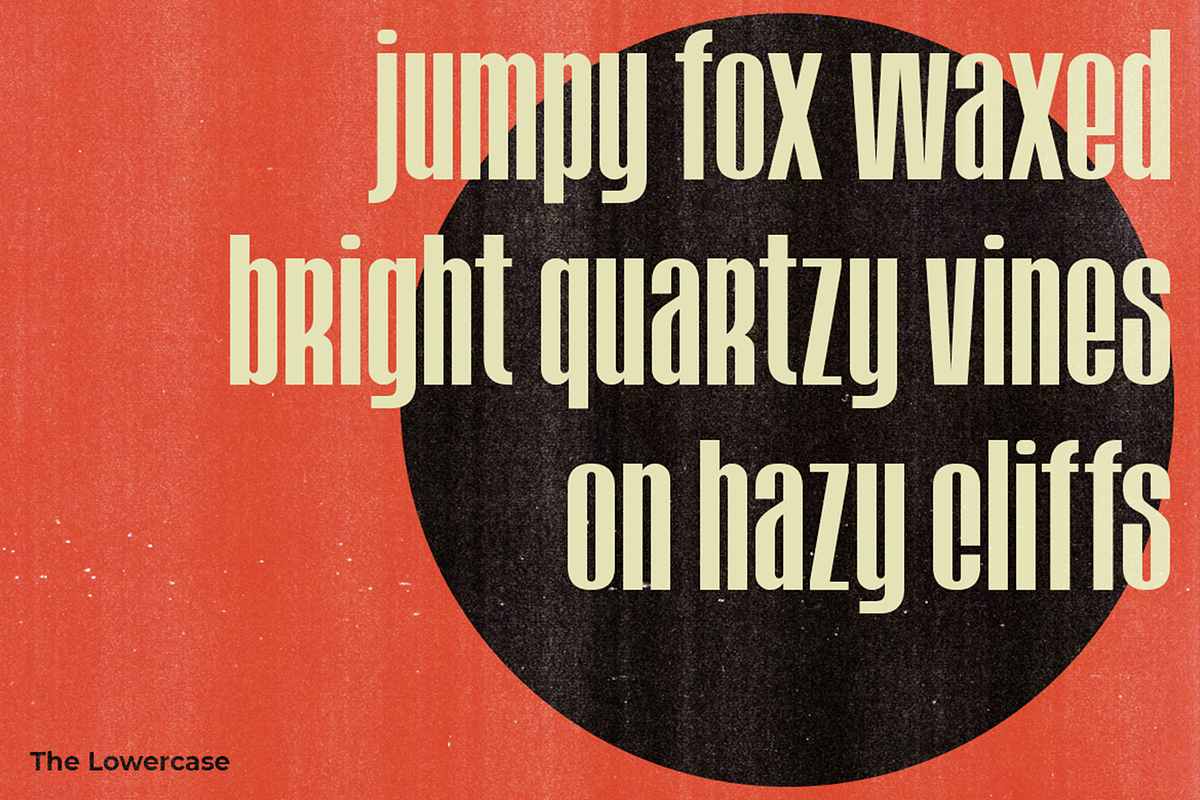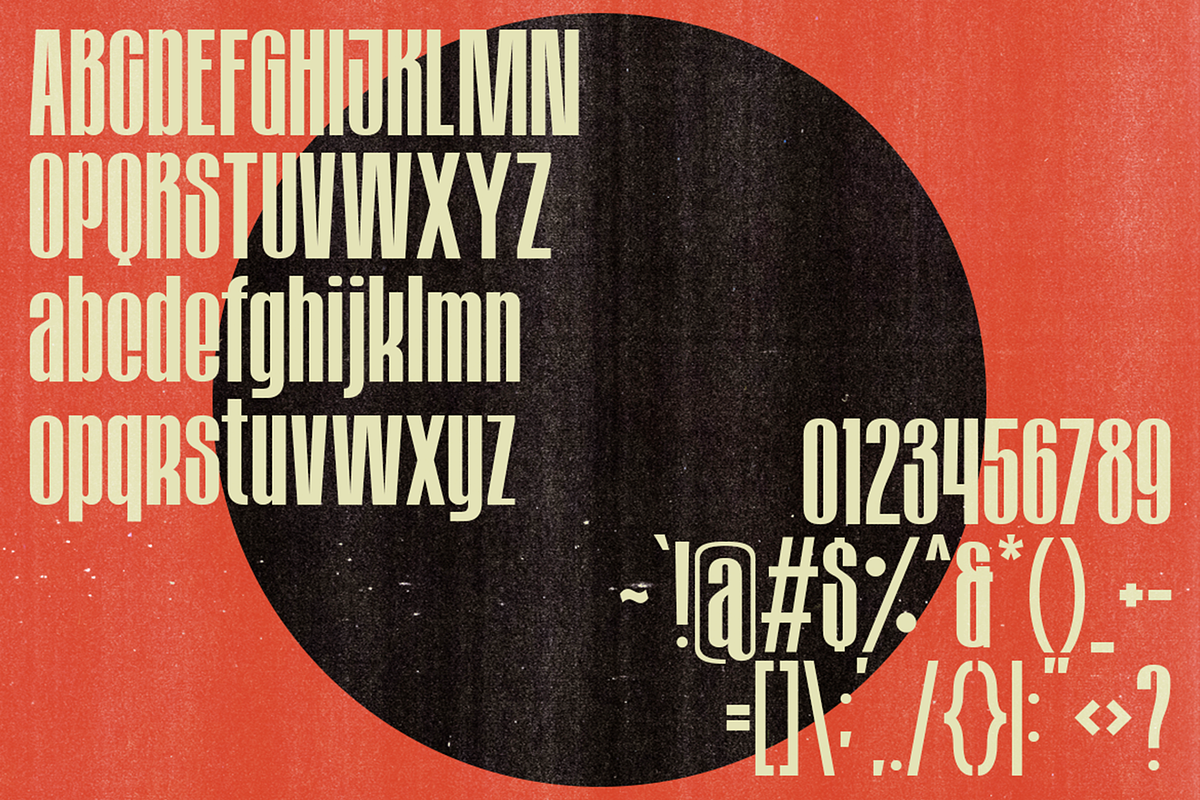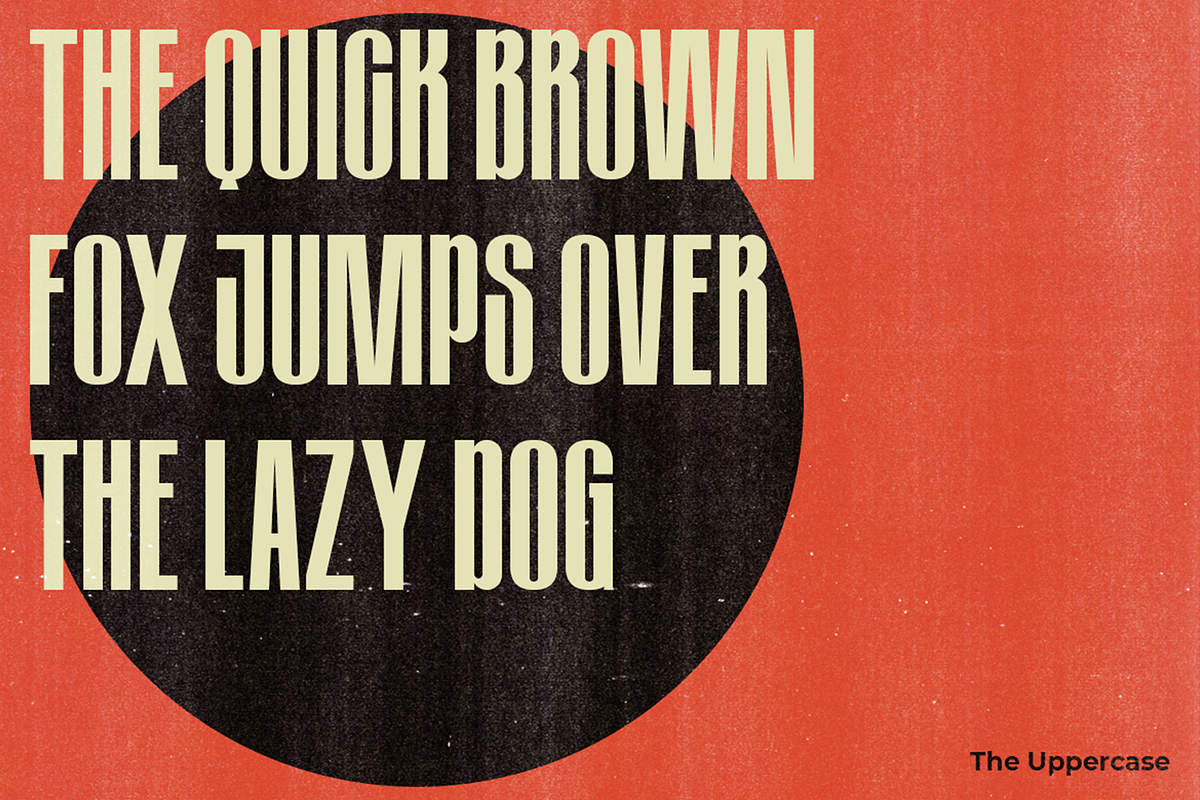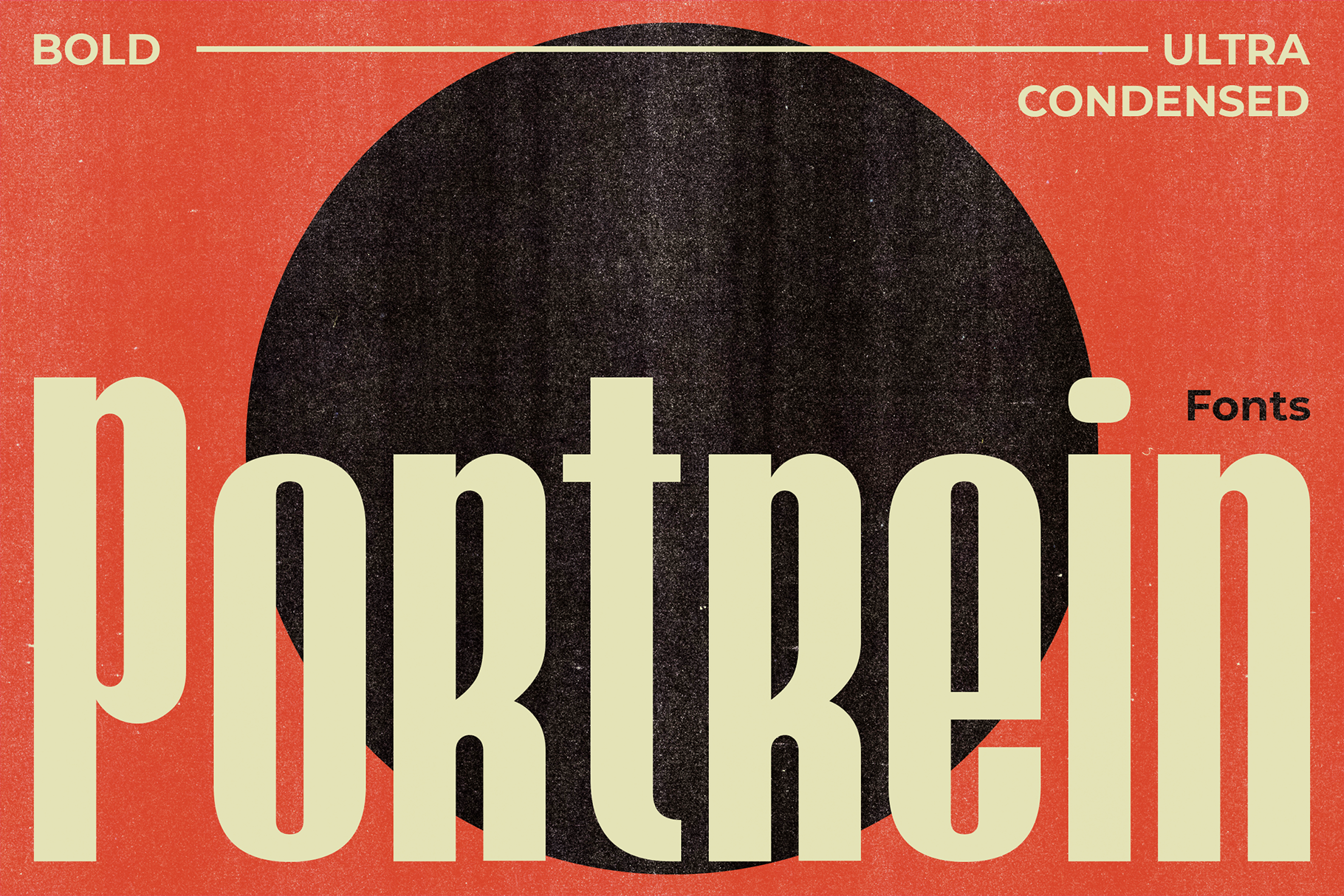
Portrein - Bold Condensed Fonts
Introducing Portrein: Bold, Ultra Condensed, and Minimalist
Step into the modern era of typography with Portrein, a bold sans-serif font that redefines minimalism with an edge. Crafted for those who dare to push the boundaries of design, Portrein delivers powerful impact while maintaining the clean hierarchy essential for standout display fonts.
Inspired by today’s sleek, minimalist aesthetics, Portrein takes a bold leap forward—perfect for designers looking for a condensed yet commanding font. Its sharp lines and ultra-condensed form make it a visual breakthrough, whether you're working on cutting-edge posters, dynamic branding, or striking editorial layouts.
Portrein doesn’t just speak; it shouts, with elegance and purpose. Get ready to elevate your designs and make your visuals impossible to ignore.